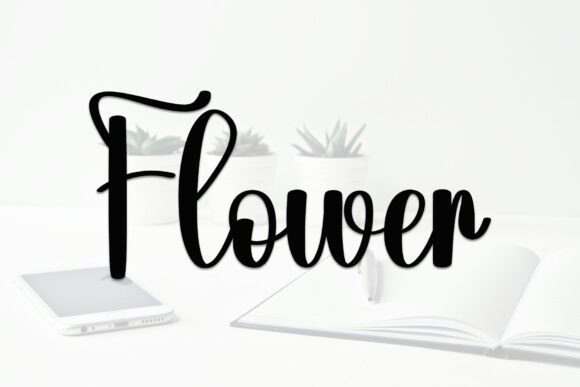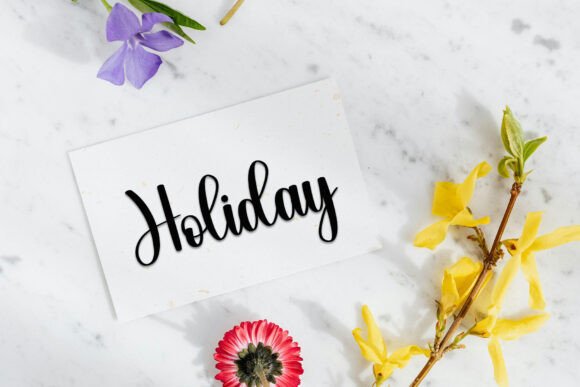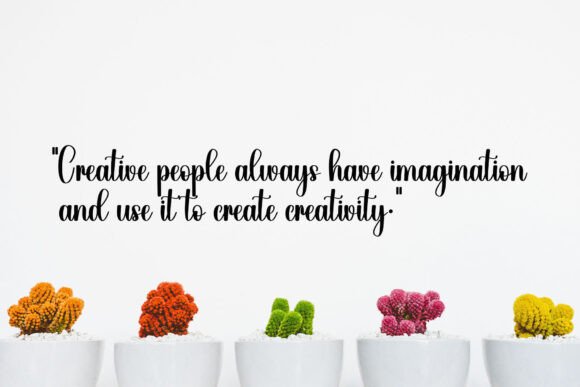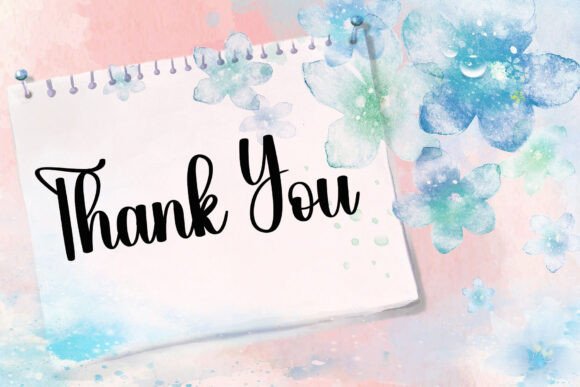
Introducing Handwriting Font: Elevate Your Designs with Elegance and Class
Are you tired of using generic fonts that lack personality in your design projects? Look no further than Handwriting Font, a trendy handwritten font that brings a contemporary atmosphere and impeccable form to your creations. Inspired by timeless classic calligraphy, Handwriting Font is the perfect addition to add elegance and class to any design project.
Handwritten fonts have become increasingly popular in recent years, and for good reason. They offer a level of uniqueness and character that generic fonts simply can’t match. A well-designed handwritten font can add a touch of personality and whimsy to your designs, making them stand out from the crowd. Handwriting Font takes this concept to the next level, with its beautiful, flowing script and classic calligraphy-inspired aesthetic.
What Sets Handwriting Font Apart
So, what makes Handwriting Font so special? Here are just a few features that set it apart from other handwritten fonts:
- Contemporary atmosphere: Handwriting Font has a modern, fresh feel that’s perfect for designers who want to create contemporary designs.
- Impeccable form: The font’s classic calligraphy inspiration ensures that it has a level of sophistication and elegance that’s hard to find in other handwritten fonts.
- Elegance and class: Whether you’re working on a luxury brand identity or a wedding invitation, Handwriting Font is sure to add a touch of elegance and class to your design.
Uses for Handwriting Font
Handwriting Font is incredibly versatile, making it suitable for a wide range of design projects. Here are just a few ideas to get you started:
- Logo design: Use Handwriting Font to create a unique and memorable logo for your brand or business.
- Wedding invitations: Add a touch of elegance and sophistication to your wedding invitations with Handwriting Font.
- Packaging design: Use Handwriting Font to create eye-catching packaging that stands out on store shelves.
- Social media graphics: Add a personal touch to your social media graphics with Handwriting Font.
Tips for Using Handwriting Font
To get the most out of Handwriting Font, here are a few tips to keep in mind:
- Use it sparingly: While Handwriting Font is beautiful, it can be overwhelming if used too much. Use it sparingly to add emphasis and create visual interest.
- Pair it with a sans-serif font: Pairing Handwriting Font with a sans-serif font can create a beautiful contrast and add visual interest to your design.
- Experiment with colors: Handwriting Font looks beautiful in a range of colors, so don’t be afraid to experiment and find the perfect hue for your design.
In conclusion, Handwriting Font is a beautiful, elegant, and classy font that’s perfect for designers and crafters looking to add a touch of personality to their designs. With its contemporary atmosphere, impeccable form, and timeless classic calligraphy inspiration, Handwriting Font is sure to elevate your designs and make them stand out from the crowd. So why wait? Try Handwriting Font today and see the difference it can make in your design projects.